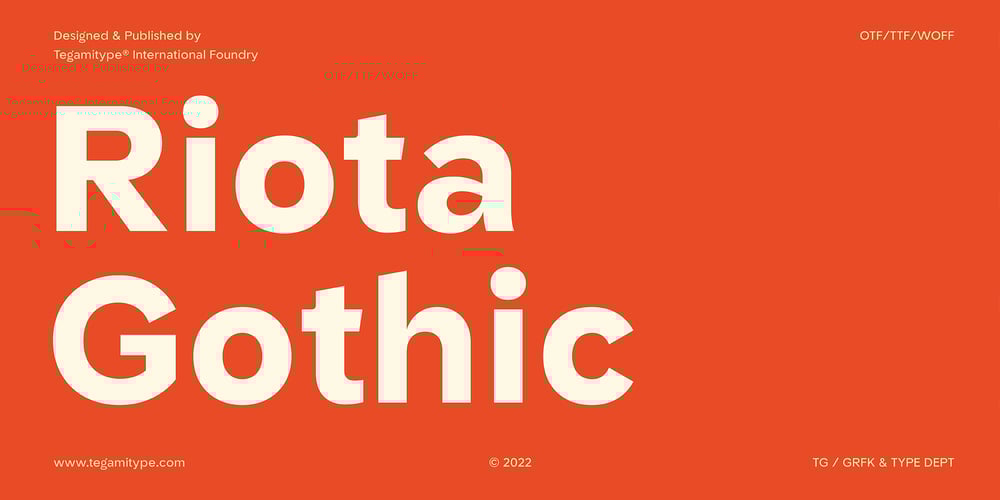
TG Riota Gothic Font Family was designed by Iqbal Firdaus and published by Tegami Type. TG Riota Gothic contains 15 styles and family package options. TG Riota Gothic is a brand new digital sans serif typeface in geometric style with many faces and possibilities with good proportions forms. TG Riota Gothic is outstanding for use in small text or even bigger sizes with seven weights, two axes & 14 styles, including the variable font. It comes with three alternative groups (single story alternates, no tail alternates & square dot alternates), which you can combine to maximize your needs—also supplied with a bunch of ligatures (standard & discretionary ligatures), lining figures (proportional, denominators, numerators, fractions, subscript & superscript), case-sensitive forms, symbol & Each typeface contains over 674 glyphs covered more than 90 languages Latin based.Language Supports:Afrikaans, Albanian, Asu, Azerbaijani, Basque, Bemba, Bena, Bosnian, Catalan, Chiga, Colognian, Cornish, Croatian, Czech, Danish, Dutch, Embu, English, Estonian, Faroese, Filipino, Finnish, French, Friulian, Galician, German, Gusii, Hungarian, Icelandic, Indonesian, Irish, Italian, Kabuverdianu, Kalaallisut, Kalenjin, Kamba, Kikuyu, Kinyarwanda, Latvian, Lithuanian, Low German, Lower Sorbian, Luo, Luxembourgish, Luyia, Machame, Makhuwa-Meetto, Makonde, Malagasy, Malay, Maltese, Manx, Meru, Morisyen, North Ndebele, Norwegian Bokmål, Norwegian Nynorsk, Nyankole, Oromo, Polish, Portuguese, Romanian, Romansh, Rombo, Rundi, Rwa, Samburu, Sango, Sangu, Scottish Gaelic, Sena, Shambala, Shona, Slovak, Slovenian, Soga, Somali, Spanish, Swahili, Swedish, Swiss-German, Taita, Teso, Thai, Turkish, Turkmen, Upper Sorbian, Vunjo, Walser, Welsh, Western Frisian, Zulu.Typeface Designed by Iqbal FirdausPublished by Tegamitype® FoundryPresentation Design by Eunike Agatha & Dennise Nathalie